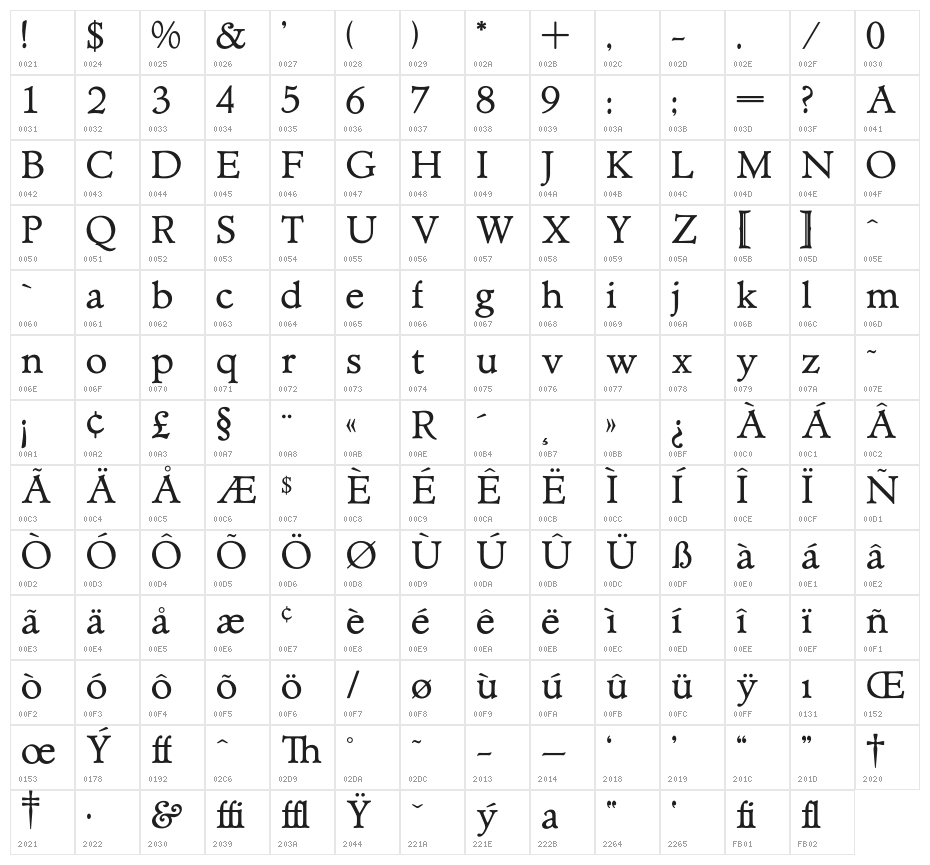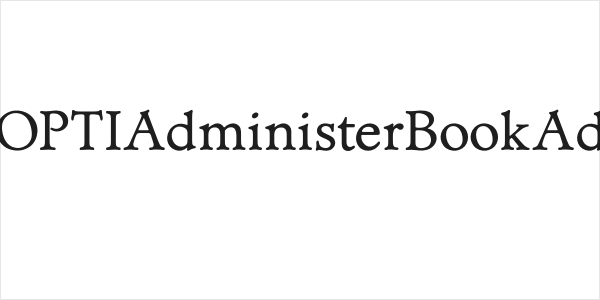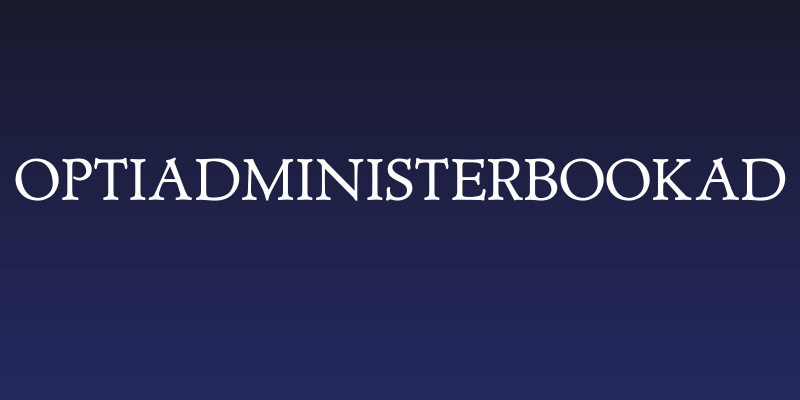
OPTIAdministerBookAd Font
OPTIAdministerBookAd Description
This font features a classic serif design with elegant and refined strokes. The uppercase letters are bold and commanding, while the lowercase letters maintain a balanced and harmonious appearance. The numerals are clear and distinct, ensuring readability. Special characters are well-integrated, maintaining the overall aesthetic. The font's design is reminiscent of traditional book typefaces, offering a timeless and sophisticated look. Its high contrast between thick and thin strokes adds to its legibility and visual appeal, making it suitable for a variety of applications.
| Proposed Projects | Perfect for book covers, editorial design, formal invitations, and branding projects that require a touch of elegance and tradition. |